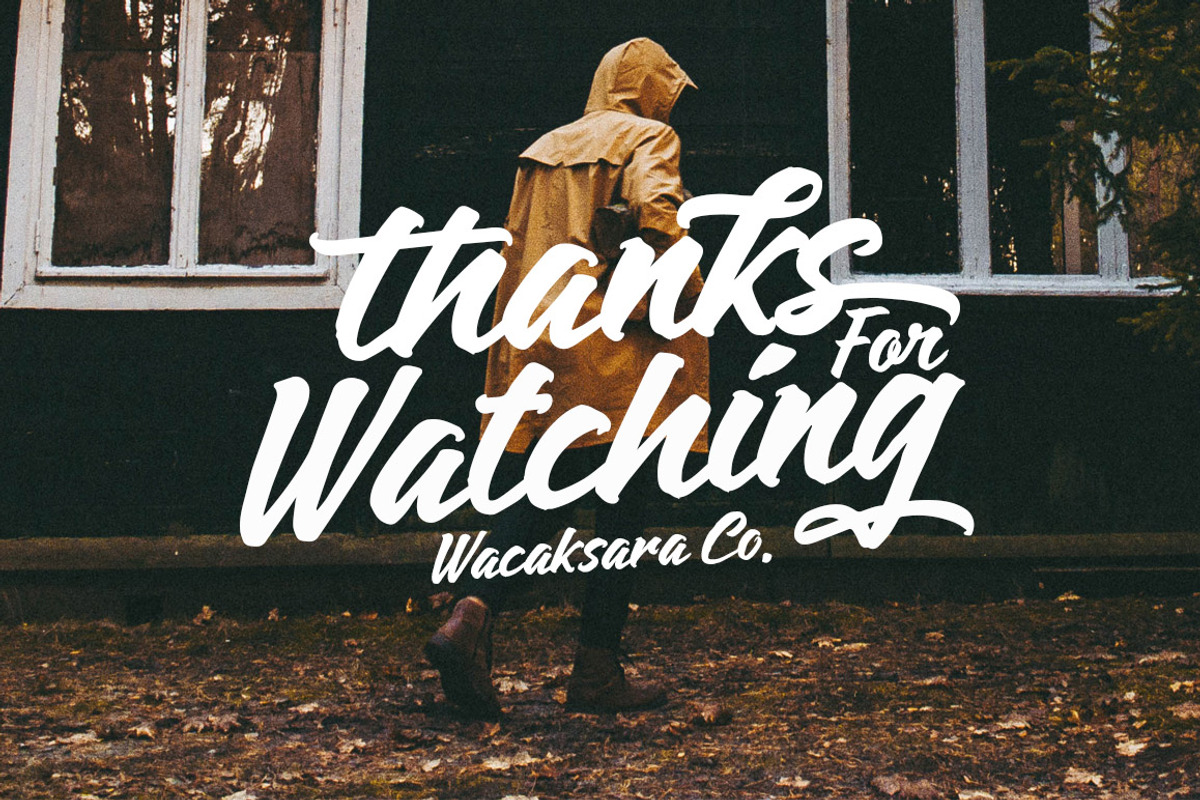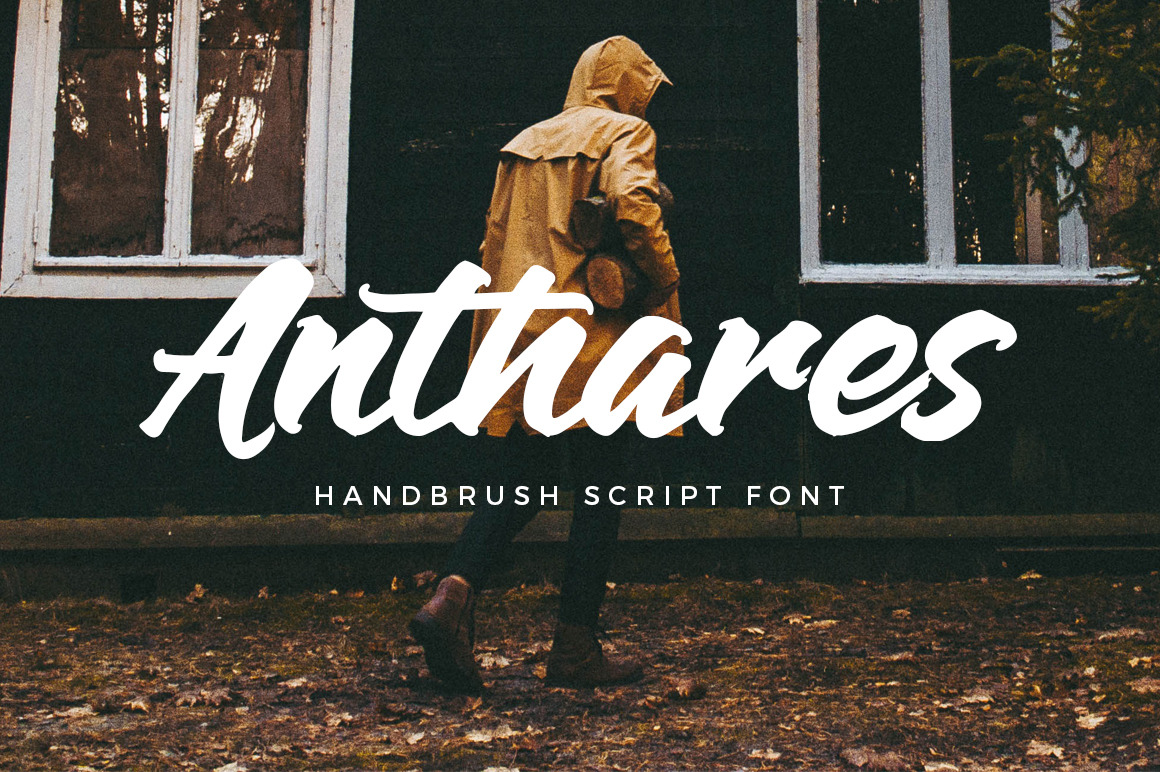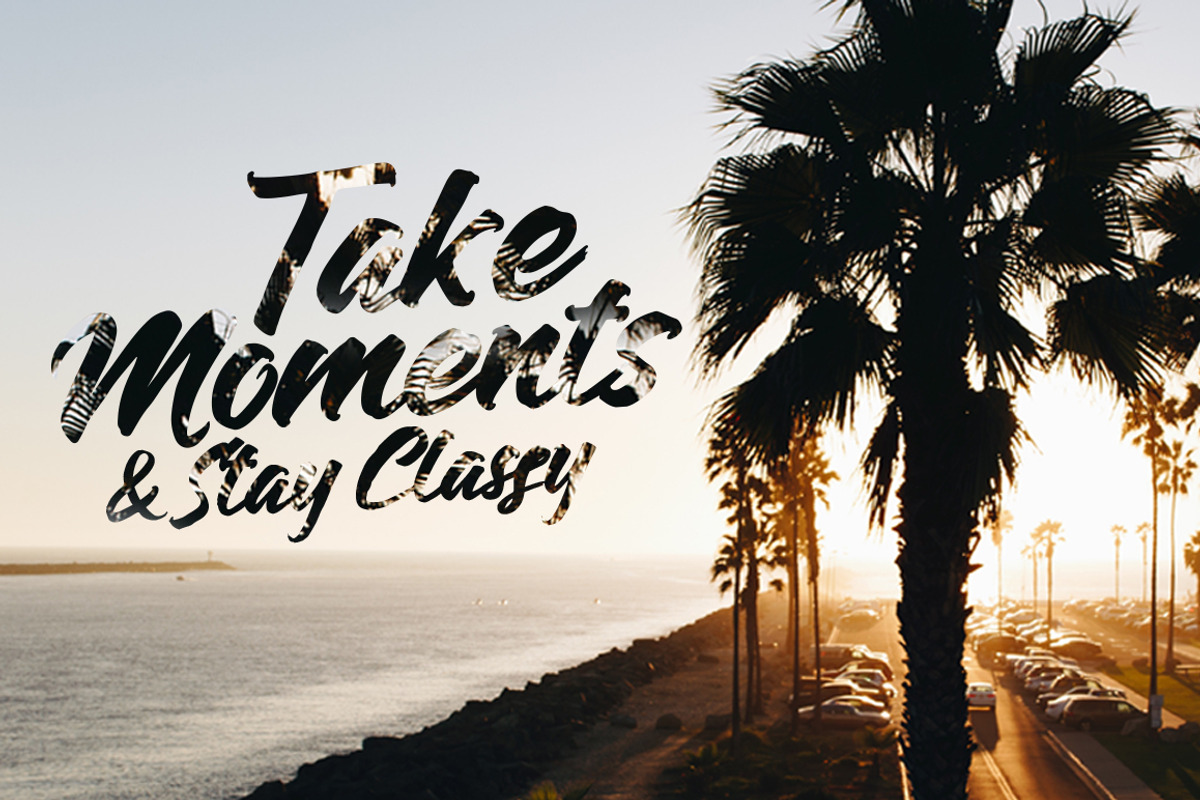
Anthares Font
Introducing Anthares, the new handbrush font with dramatic movement and good styles, It's allowing you to create amazing handlettering typography in an instant.
Anthares Font comes with uppercase, lowercase, numerals, punctuations and so many variations on each characters include opentype alternates, common ligatures and also additional swash. Perfect to use for Logotype, Letterhead, Poster, Apparel Design, Label and etc.
You will also discover extras swash added to give that finishing touch to your texts .